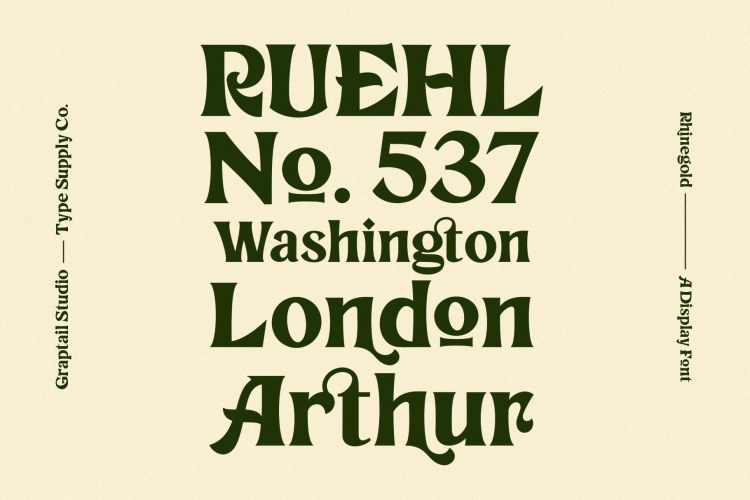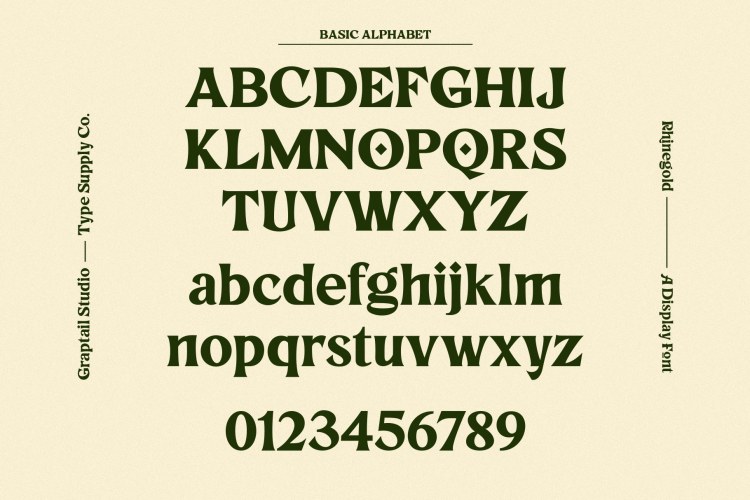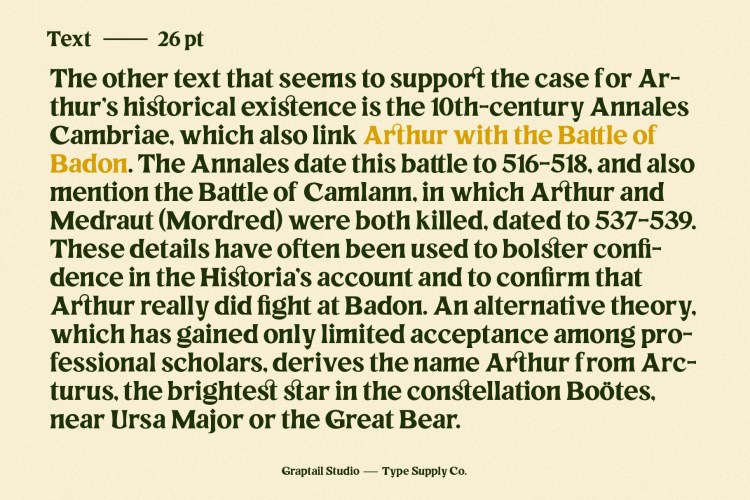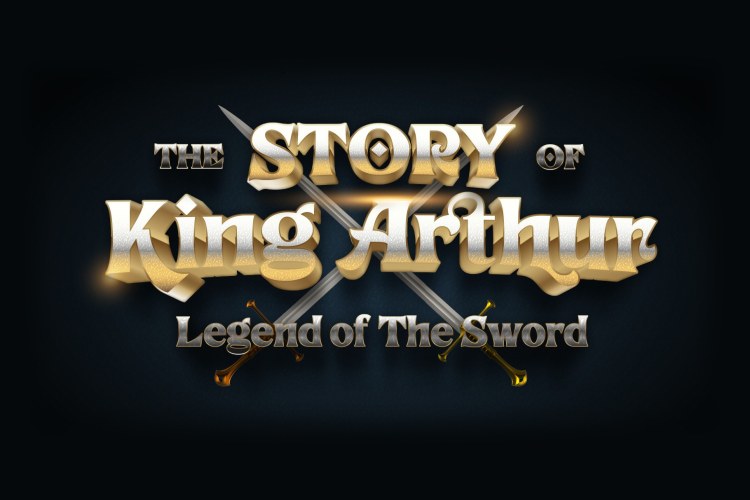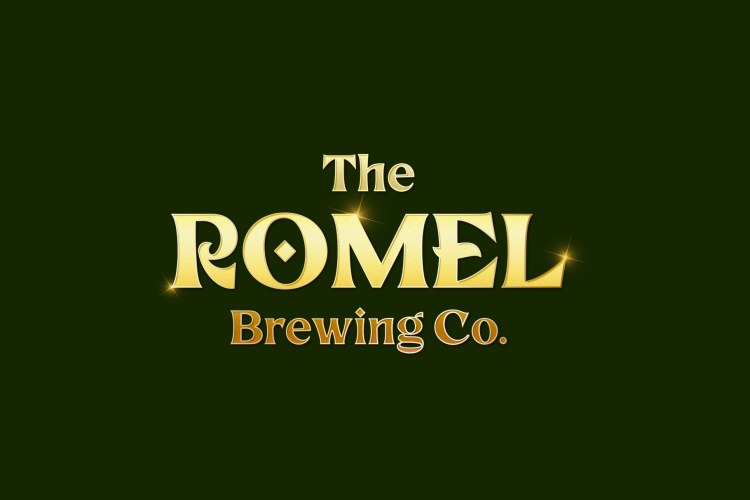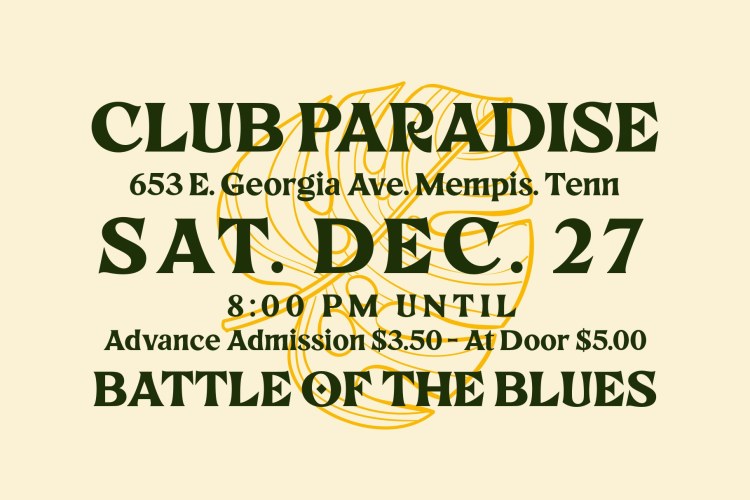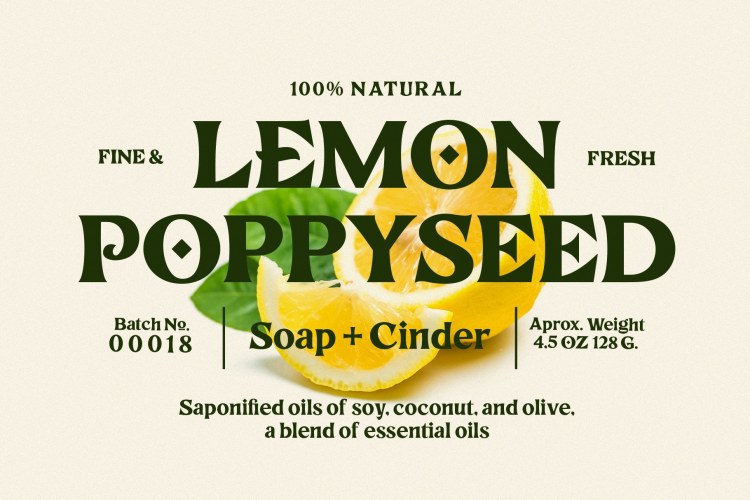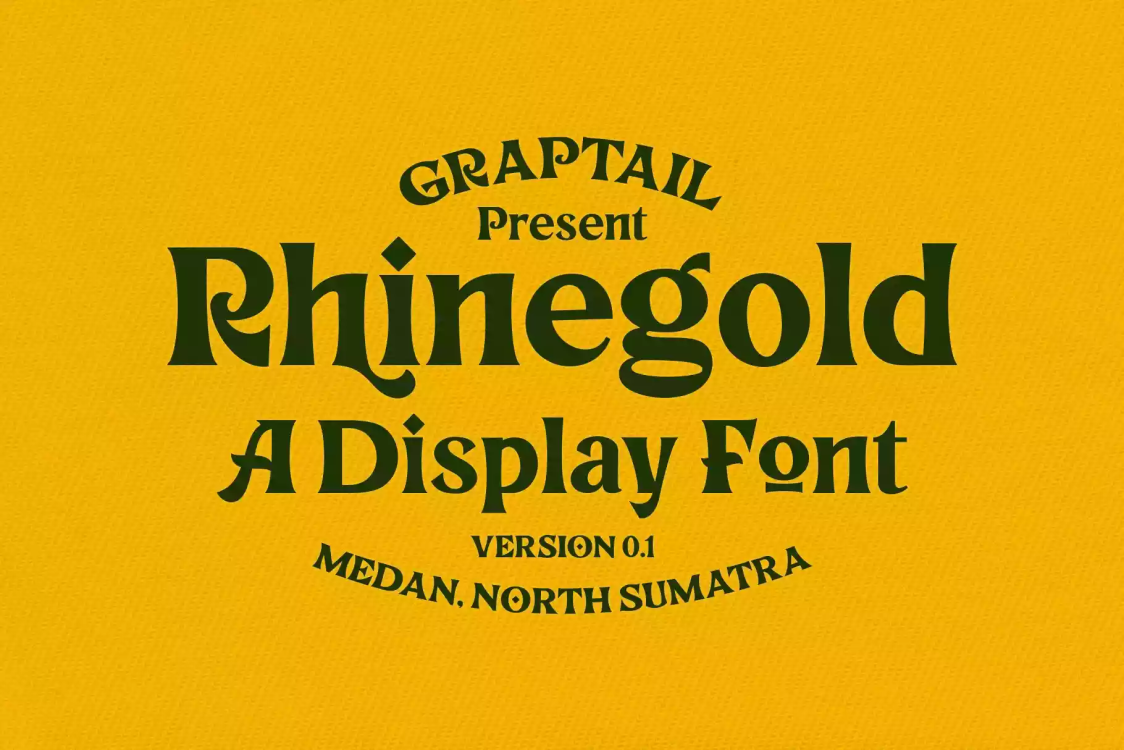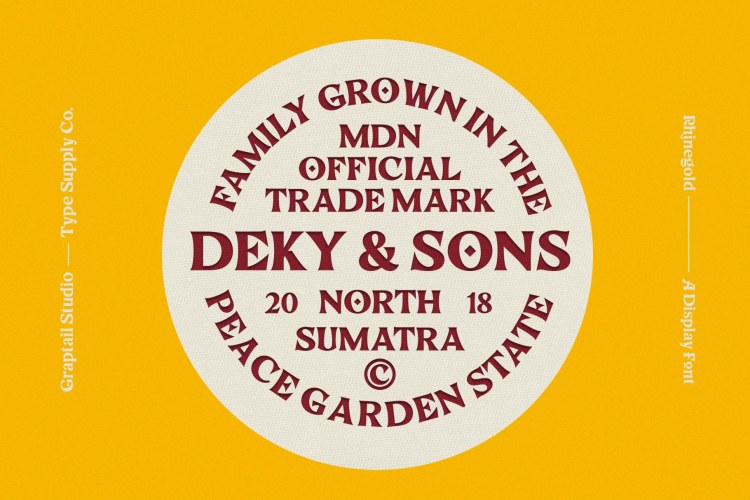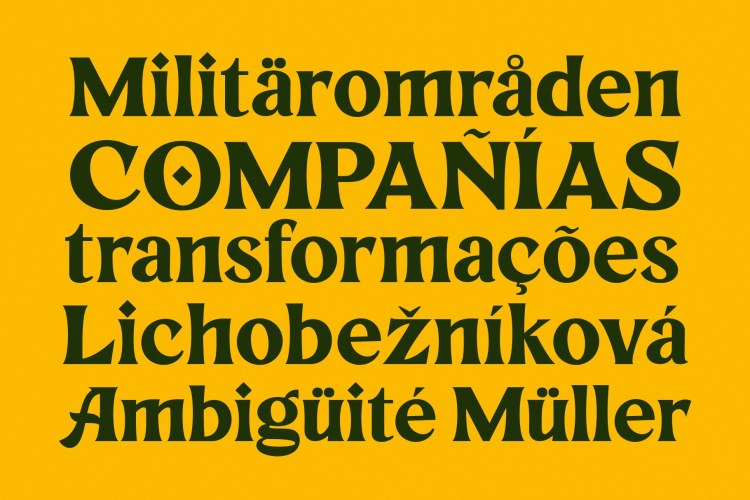
Rhinegold Font
Rhinegold is a font display is made by hand, inspired by classic posters. Rhinegold comes with uppercase, lowercase, numerals, punctuations and so many variations on each characters include opentype alternates, common ligatures and also additional swash to let you customise your designs. Perfect to use for Logotype, Letterhead, Poster, Apparel Design, Label and etc.
Where Rhinegold Font works best
Rhinegold Font gives long-form text a classic, trustworthy rhythm — ideal for magazine spreads, annual reports and book interiors.
Pair Rhinegold Font with generous letter-spacing for wordmarks in fashion, hospitality, wine and jewellery branding.
Use Rhinegold Font for slide titles in Keynote, PowerPoint or Google Slides to add authority without looking dated.
What is Rhinegold Font good for?